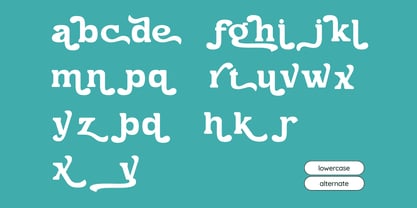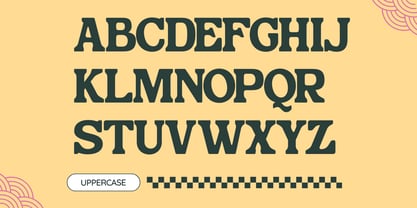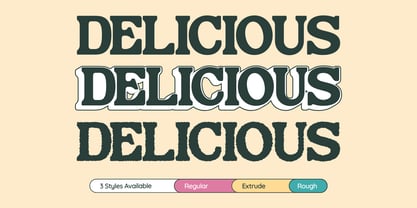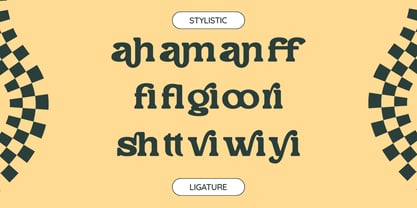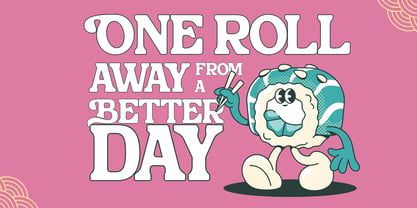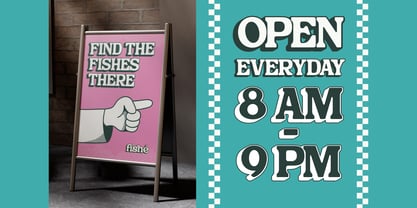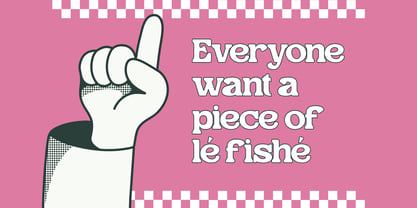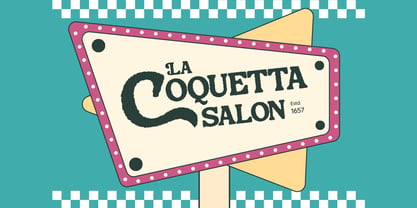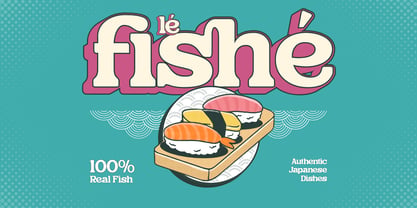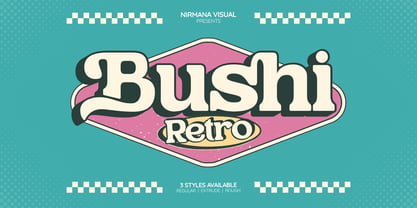
Bushi Retro
por Nirmana Visual
La familia tipográfica Bushi Retro fue diseñada por Sigit Dwipa y publicada por Nirmana Visual. Bushi Retro contiene 3 estilos y opciones de paquete familiar. Más información sobre esta familia
Bushi Retro Font is a bold display typeface inspired by classic retro aesthetics with a playful, punchy character. Featuring three styles—Regular, Rough, and Extrude—Bushi offers versatile visual impact, from clean vintage looks to textured, handcrafted feels and eye-catching dimensional effects. Perfect for food promotions, packaging, label designs, logos, menus, posters, and retro-themed branding, Bushi brings warmth, nostalgia, and strong personality to any creative project.
Diseñadores: Sigit Dwipa
Fundición: Nirmana Visual